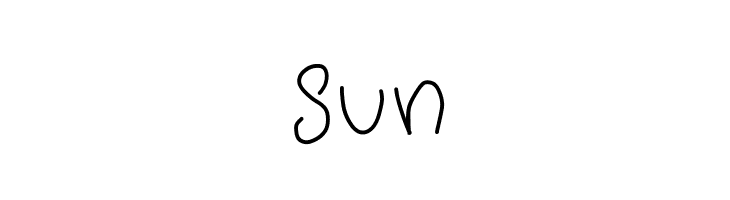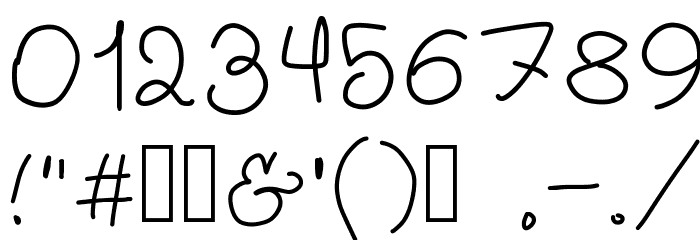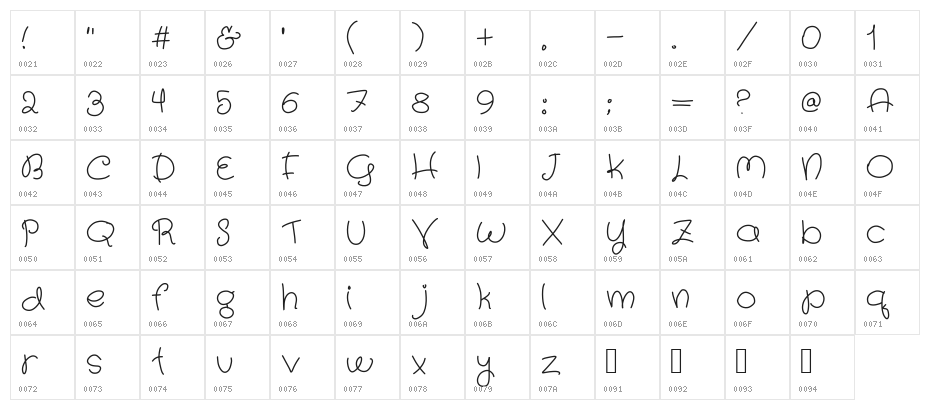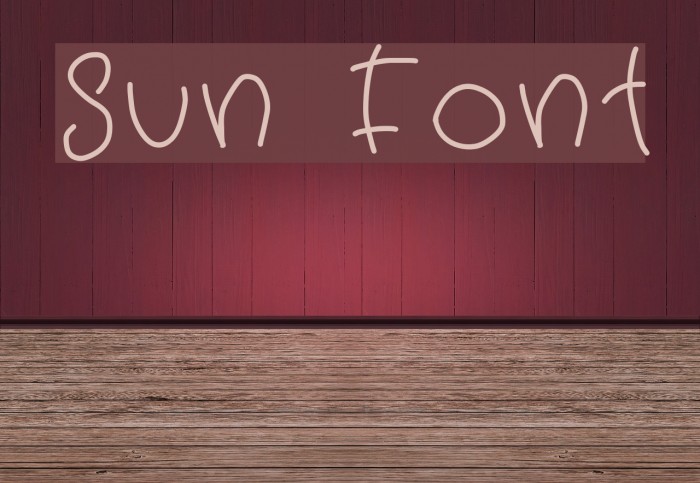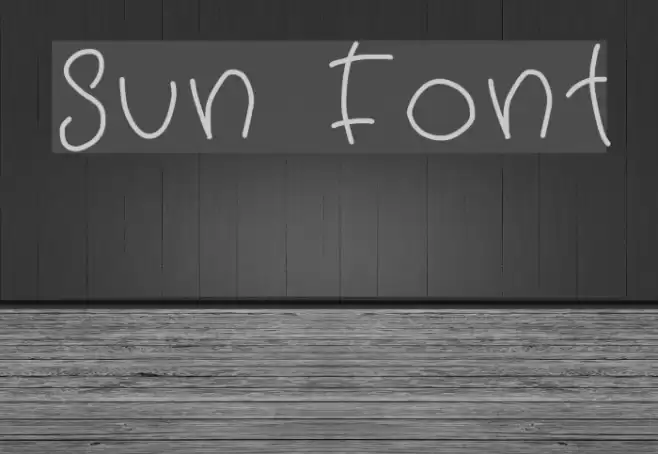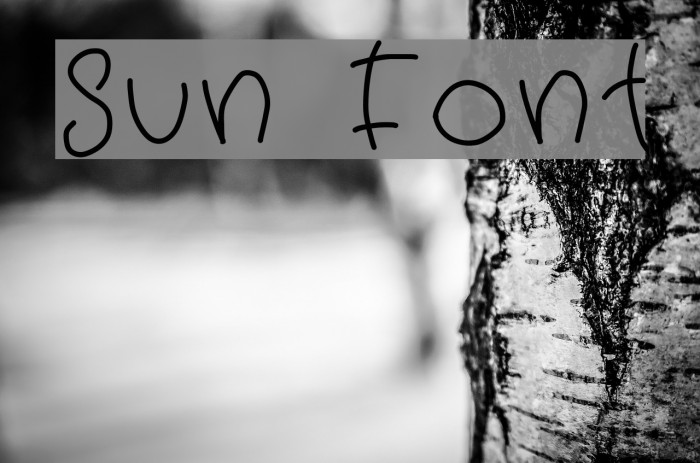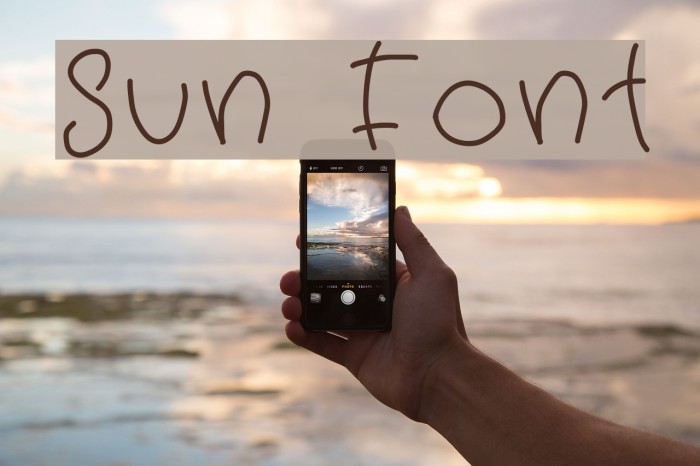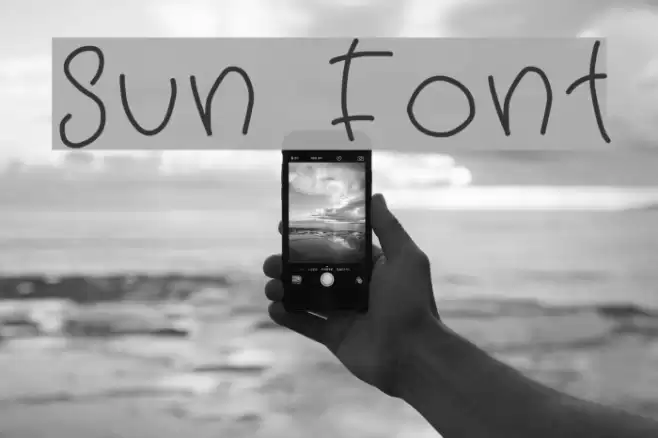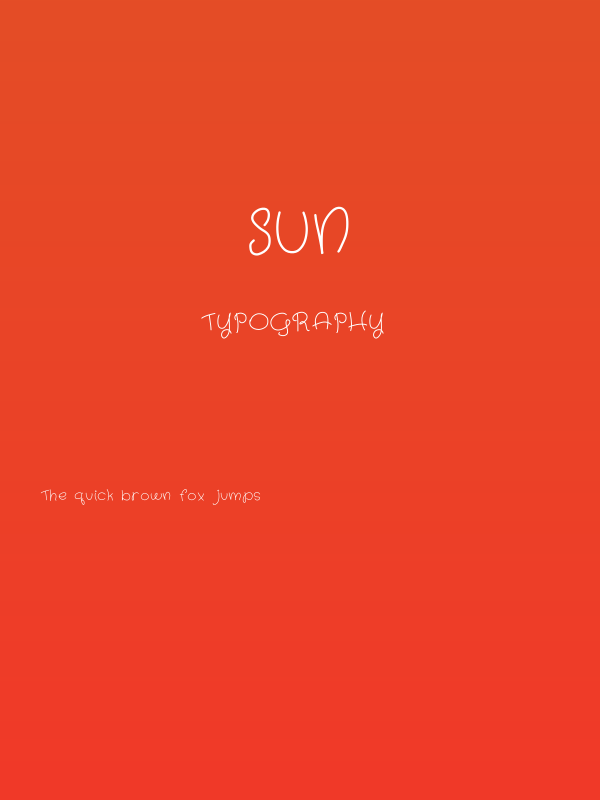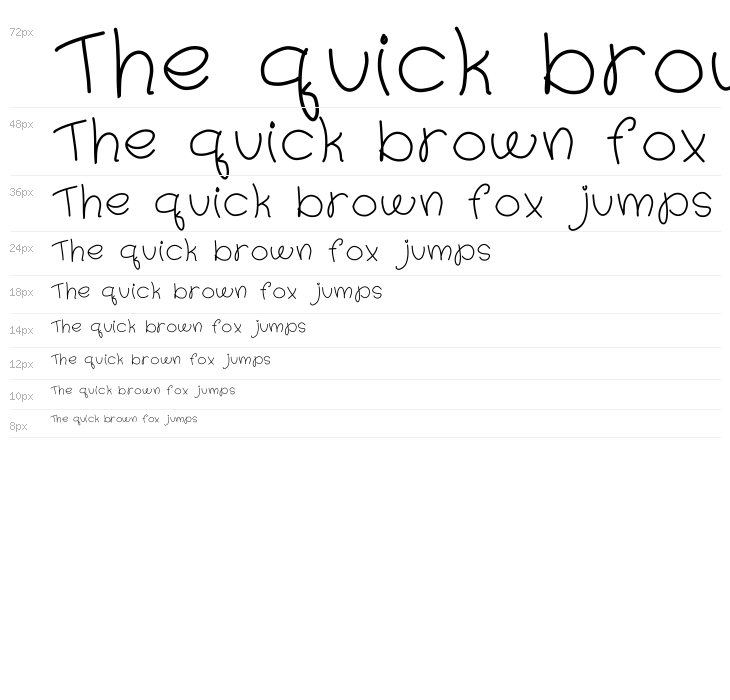
Sun Font
Sun Description
This playful and whimsical font features a handwritten style with smooth, flowing curves and a casual, friendly appearance. The letters are slightly irregular, adding to the charm and personality of the typeface. It includes both uppercase and lowercase letters, numbers, and a variety of special characters. The strokes are consistent in width, providing a uniform look while maintaining a sense of spontaneity. This font is ideal for projects that require a personal touch or a fun, informal vibe.